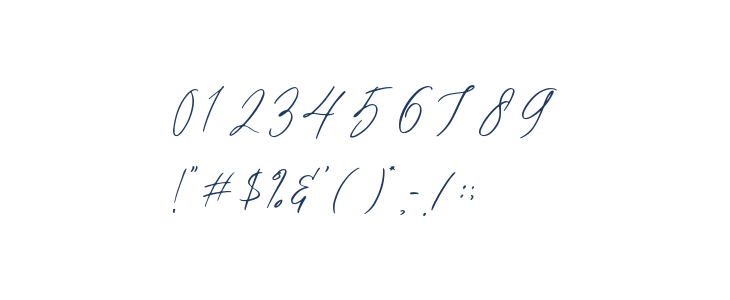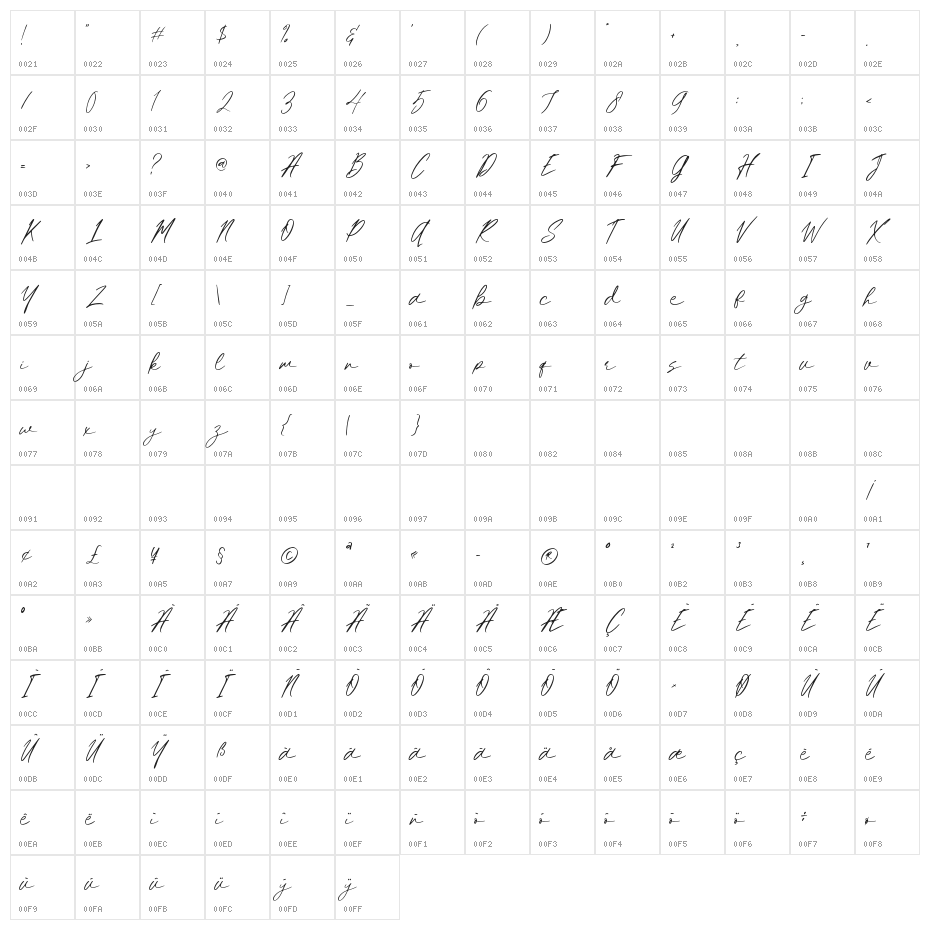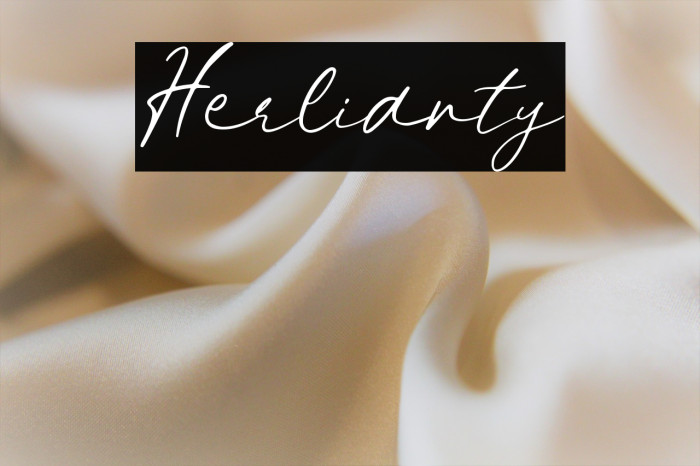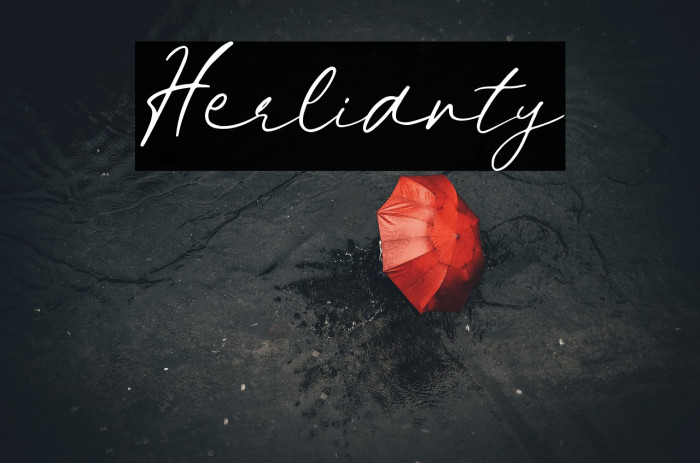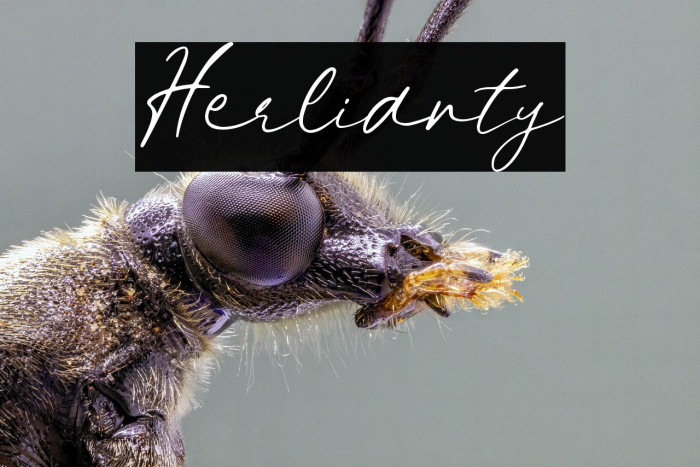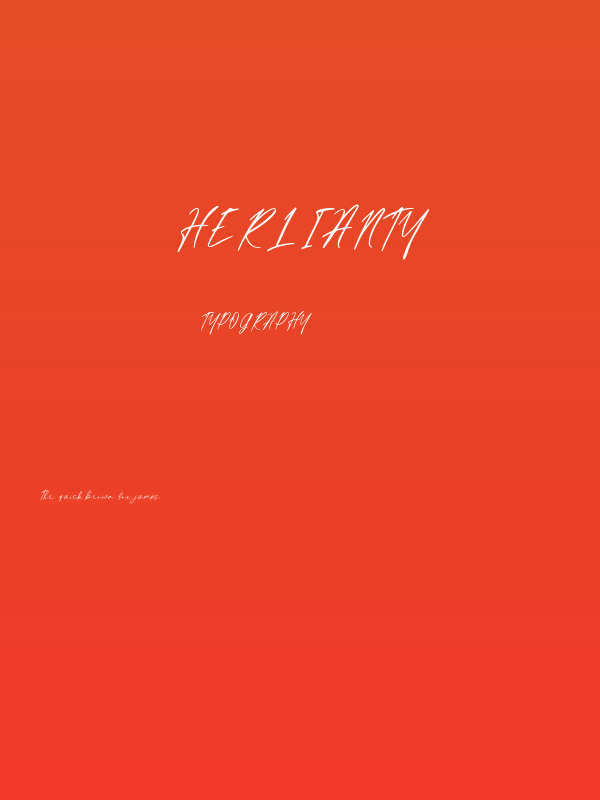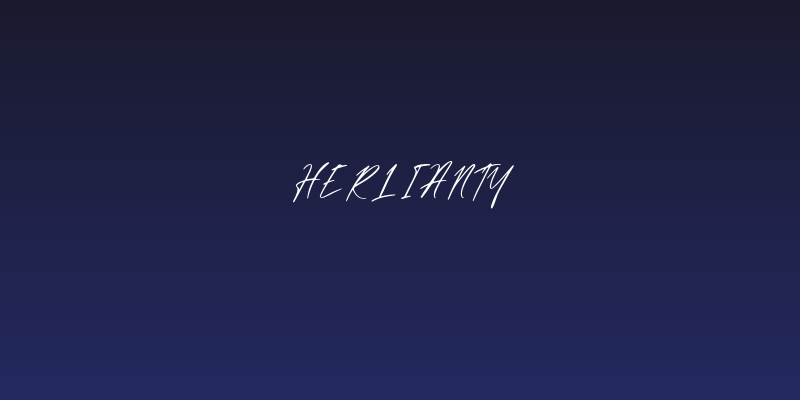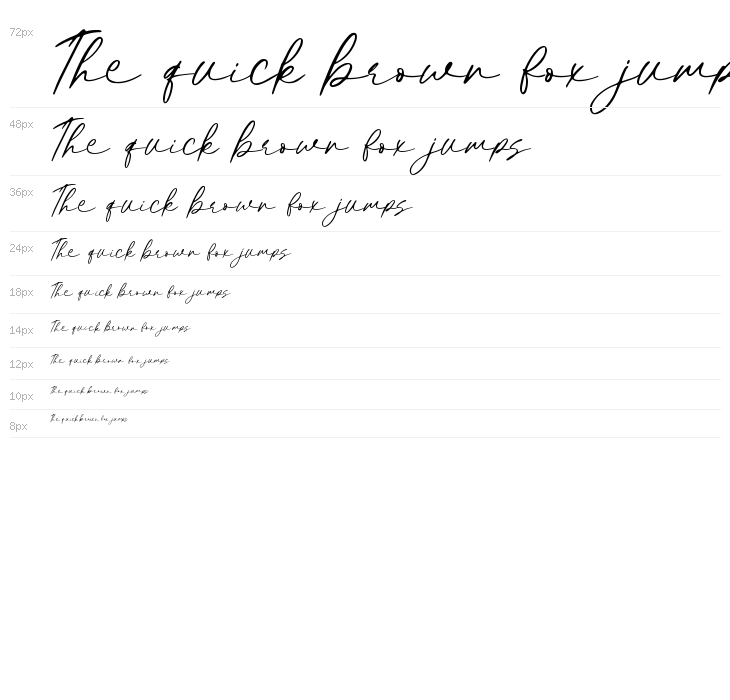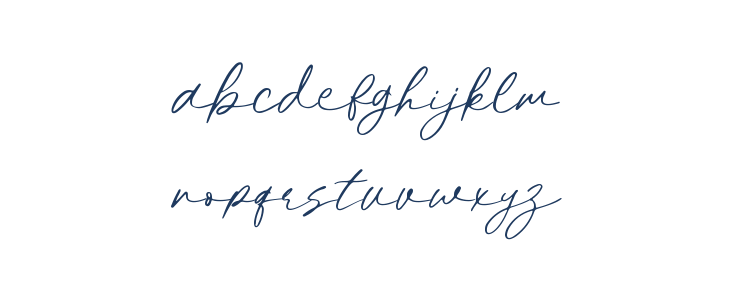
Herlianty Font
Herlianty Description
This font features an elegant and flowing script style, characterized by its smooth, cursive strokes and a handwritten appearance. The letters are connected, creating a sense of fluidity and movement. The uppercase letters are slightly more ornate, with flourishes that add a touch of sophistication. The lowercase letters maintain a consistent flow, enhancing readability while retaining a personal touch. The numerals and special characters are designed to match the overall script style, ensuring cohesion across all text elements. This font is ideal for projects that require a personal, elegant touch.
| Overall Style | Elegant, Handwritten |
| Proposed Projects | Ideal for wedding invitations, greeting cards, personal branding, and elegant packaging designs. |